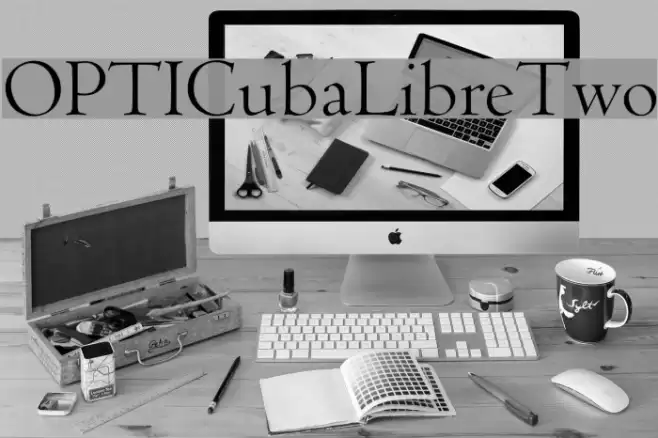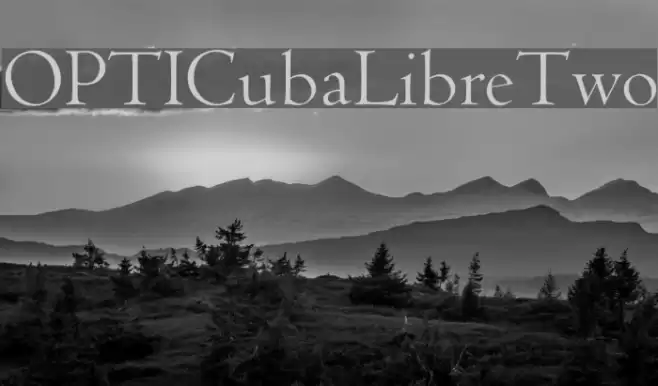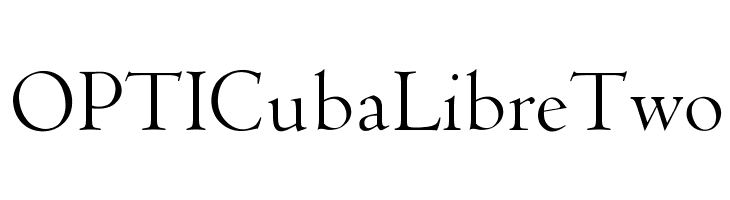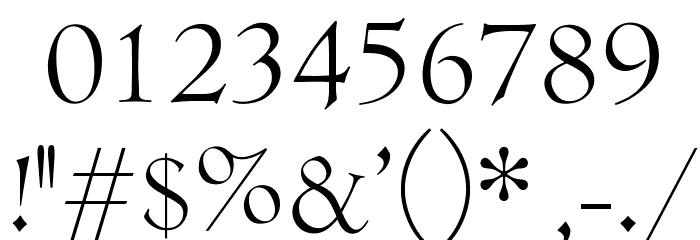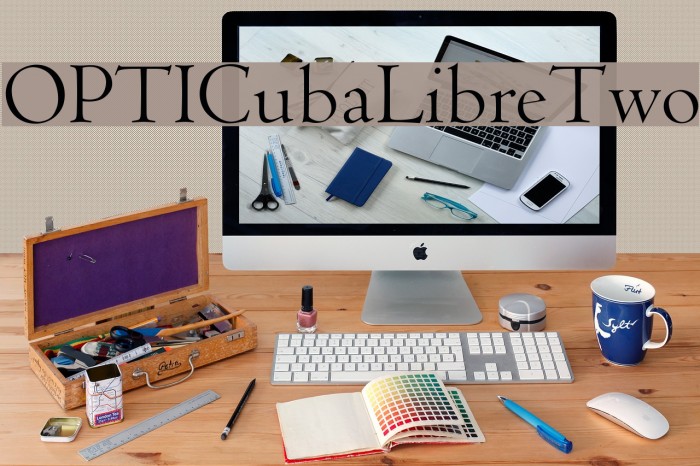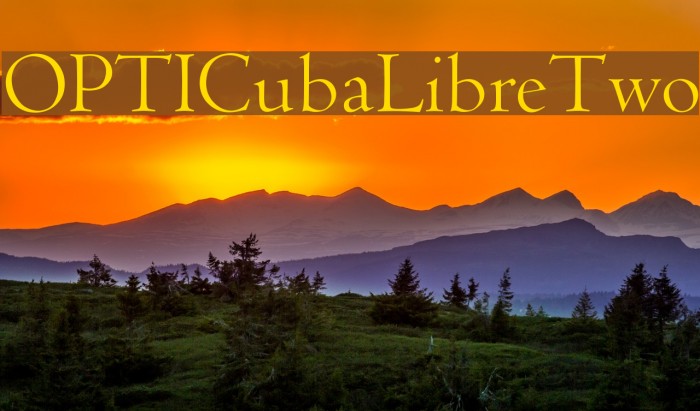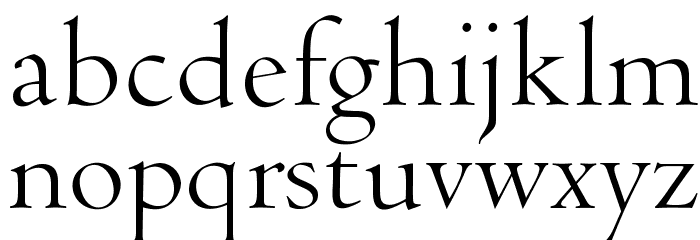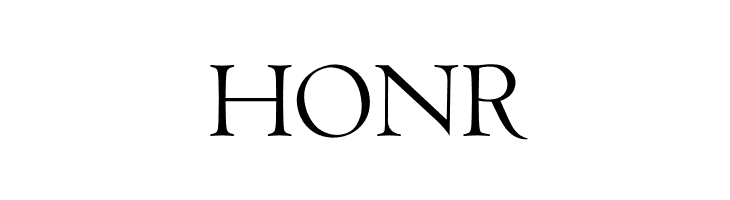
OPTICubaLibreTwo
This font exhibits a classic serif style with elegant, thin strokes and subtle curves. The uppercase letters are tall and stately, while the lowercase letters maintain a graceful flow, making it suitable for both formal and artistic applications. The numerals are clear and distinct, ensuring readability. Special characters are designed with the same attention to detail, providing a cohesive look across all glyphs. The overall design is sophisticated, with a timeless appeal that balances tradition and modernity.
A classic serif font with elegant, thin strokes and a timeless appeal.
- Proposed Projects: Ideal for book covers, formal invitations, branding for luxury products, and editorial design.
- Category: Serif
- Overall Style: Classic